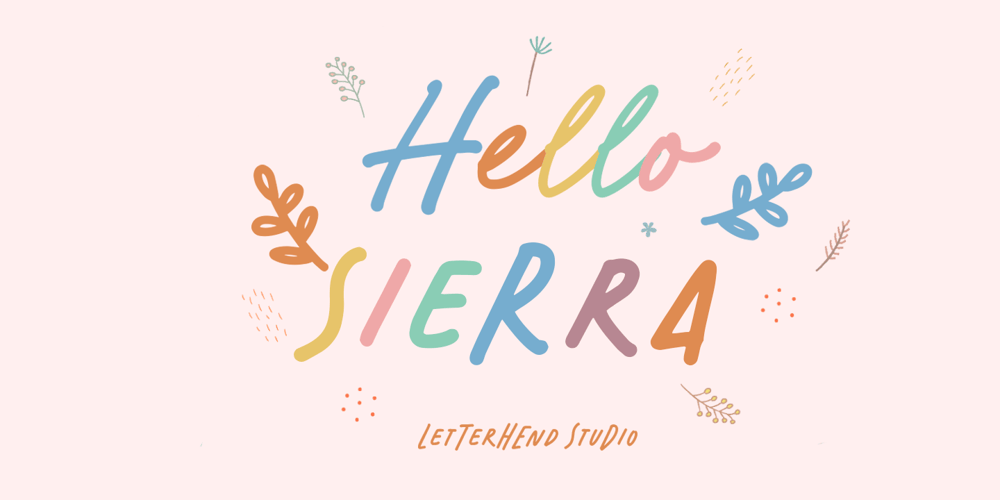
Hello Sierra Sans Font Family was designed by Hendry Juanda and published by Letterhend. Hello Sierra Sans contains 2 styles and family package options. Hello Sierra is a pair of font that brings the fun, playful look with feminine feel. The handwritten sans serif combined with the natural hand writing script are the perfect match for you who needs a typeface for headline, logotype, apparel, invitation, branding, packaging, advertising etc.Features : 2 fonts (sans serif and script font) uppercase & lowercase numbers and punctuation multilingual alternates & ligatures PUA encoded We highly recommend using a program that supports OpenType features and Glyphs panels like many of Adobe apps and Corel Draw, so you can see and access all Glyph variations. How to access opentype feature : letterhend.com/tutorials/using-opentype-feature-in-any-software/